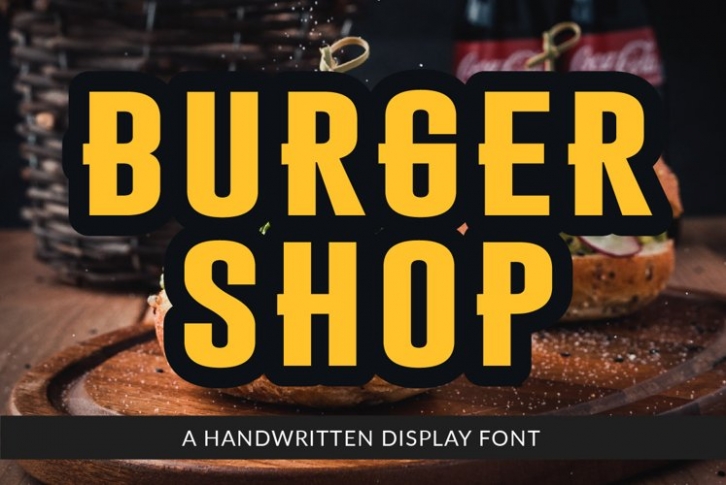
Burger Shop is a trendy and unique font with an authentic style. It was designed by plusstore and it's a great choice for creative people who need such a font. It was released on May 20, 2022 and the file size is 1.67 MB. Burger Shop will add an organic vibe to any design idea!